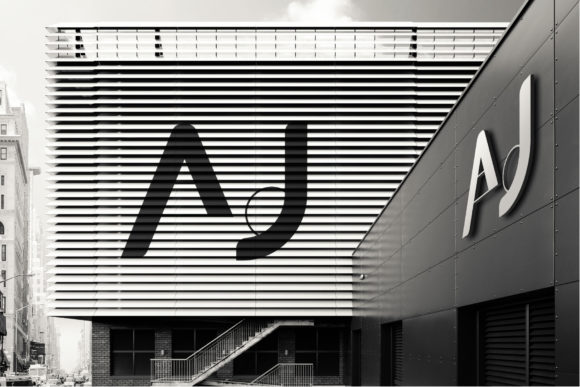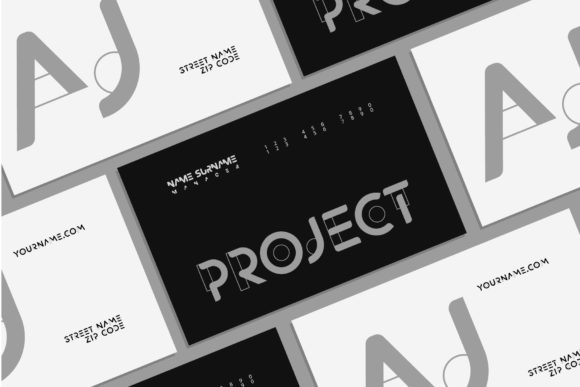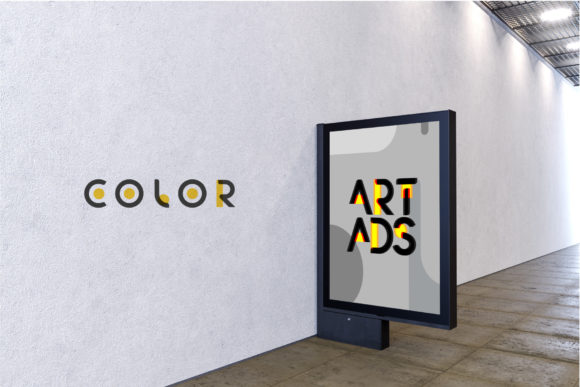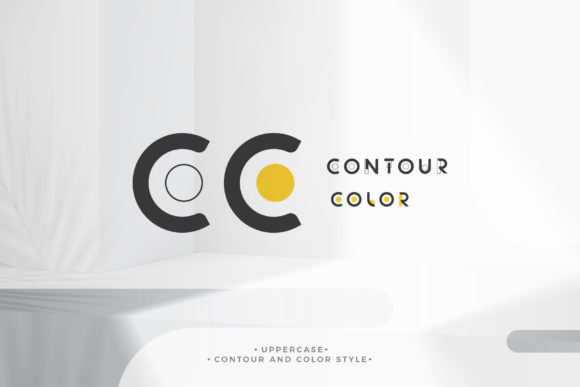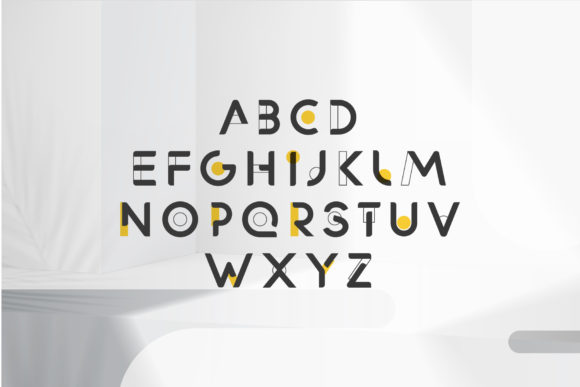
Introducing Contour Font: A Futuristic and Unique Display Font
Are you tired of using the same old fonts in your designs? Look no further than Contour Font, a futuristic and uniquely designed display font that’s sure to take your typography to the next level. Featuring geometric styles and distinct touches, this font is a great asset to any designer’s font library.
What is Contour Font?
Contour Font is a modern display font that’s perfect for designers who want to add a touch of futurism to their work. Its geometric style and unique design elements make it stand out from more traditional fonts, and its versatility ensures that it can be used in a wide range of design applications.
Key Features of Contour Font
- Geometric Style: Contour Font features a geometric style that’s perfect for creating modern and futuristic designs.
- Unique Design Elements: The font’s distinct touches and unique design elements ensure that it stands out from more traditional fonts.
- Versatility: Contour Font can be used in a wide range of design applications, from posters and flyers to logos and branding.
- Ease of Use: The font is easy to read and use, making it perfect for designers of all skill levels.
Who is Contour Font for?
Contour Font is perfect for designers who want to add a touch of futurism to their work. Whether you’re a graphic designer, a crafty DIY enthusiast, or a branding expert, this font is sure to be a great asset to your font library.
Some examples of designers who may benefit from using Contour Font include:
- Graphic Designers: Contour Font is perfect for graphic designers who want to create modern and futuristic designs for their clients.
- Branding Experts: The font’s unique design elements and geometric style make it perfect for creating logos and branding materials that stand out.
- Crafty DIY Enthusiasts: Contour Font is also perfect for crafty DIY enthusiasts who want to add a touch of futurism to their handmade projects.
Tips and Tricks for Using Contour Font
Here are a few tips and tricks for using Contour Font:
- Experiment with Different Sizes: Contour Font looks great in a variety of sizes, so don’t be afraid to experiment and see what works best for your design.
- Pair it with Other Fonts: Contour Font pairs well with a variety of other fonts, so try pairing it with some of your favorite fonts to create a unique look.
- Use it for Headlines: Contour Font is perfect for headlines and titles, so try using it to add a touch of futurism to your design.